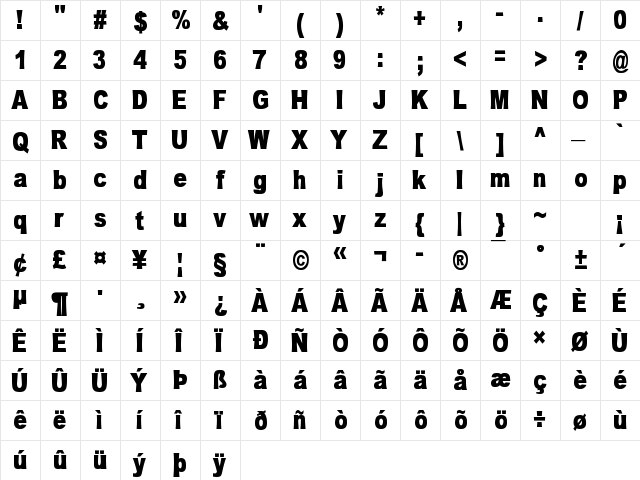
OMNIBLACK Regular
| Foundry | StudioTypo |
| Designer | Mehmet Abac |
Design Context for OMNIBLACK Typeface
OMNIBLACK takes a measured approach to typography — its balanced proportions and neutral character make it a reliable workhorse for both digital and print work.